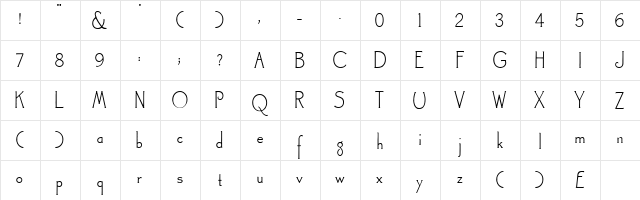
Landsdowne Regular
| Designer | PJL |
Design Context for Landsdowne Typeface
Landsdowne offers clean, dependable letterforms without strong stylistic allegiance, making it a practical choice for designers who need flexibility.